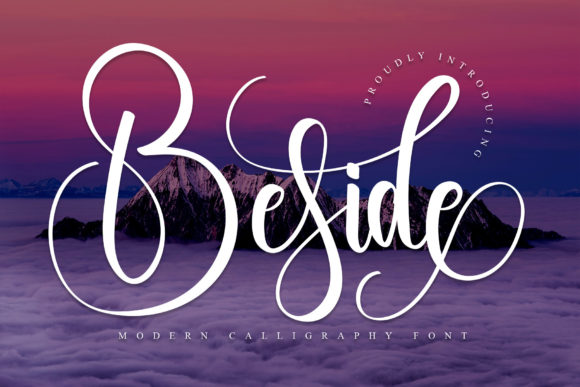
About the Beside Font
Meet Beside Font, a stunning font that brings a touch of elegance and professionalism to any design. Beside is a luxury handwritten font, described by an elegant touch, perfect for your favorite projects. Fall in love with its incredibly distinct and timeless style and use it to create spectacular designs!